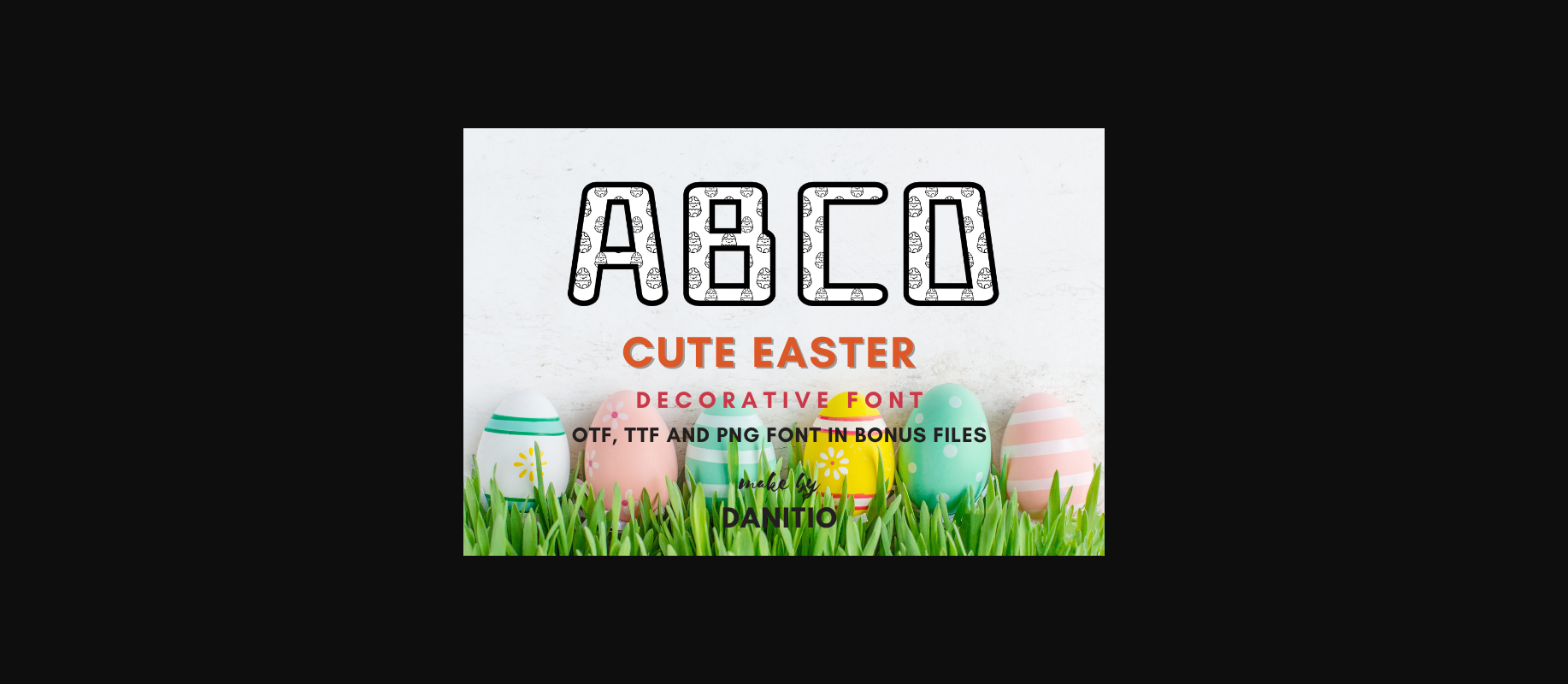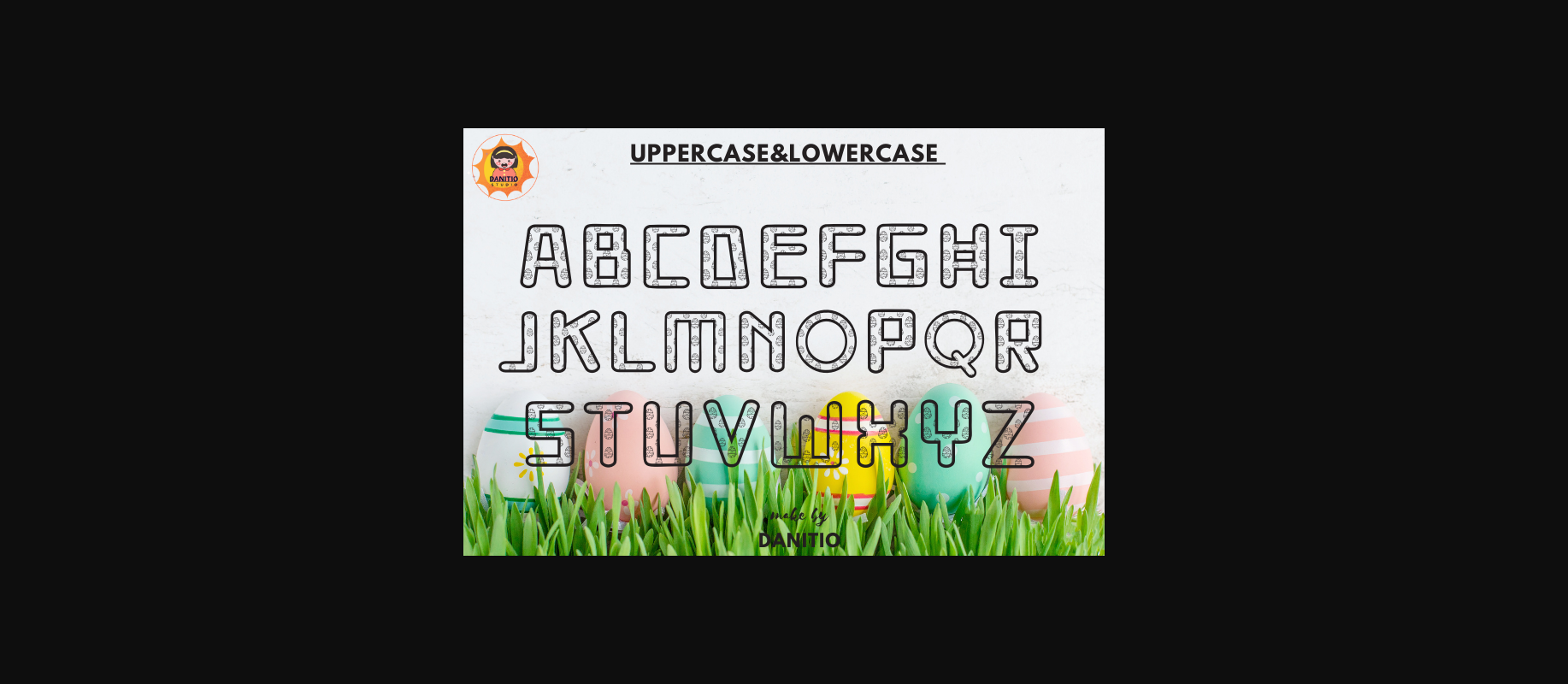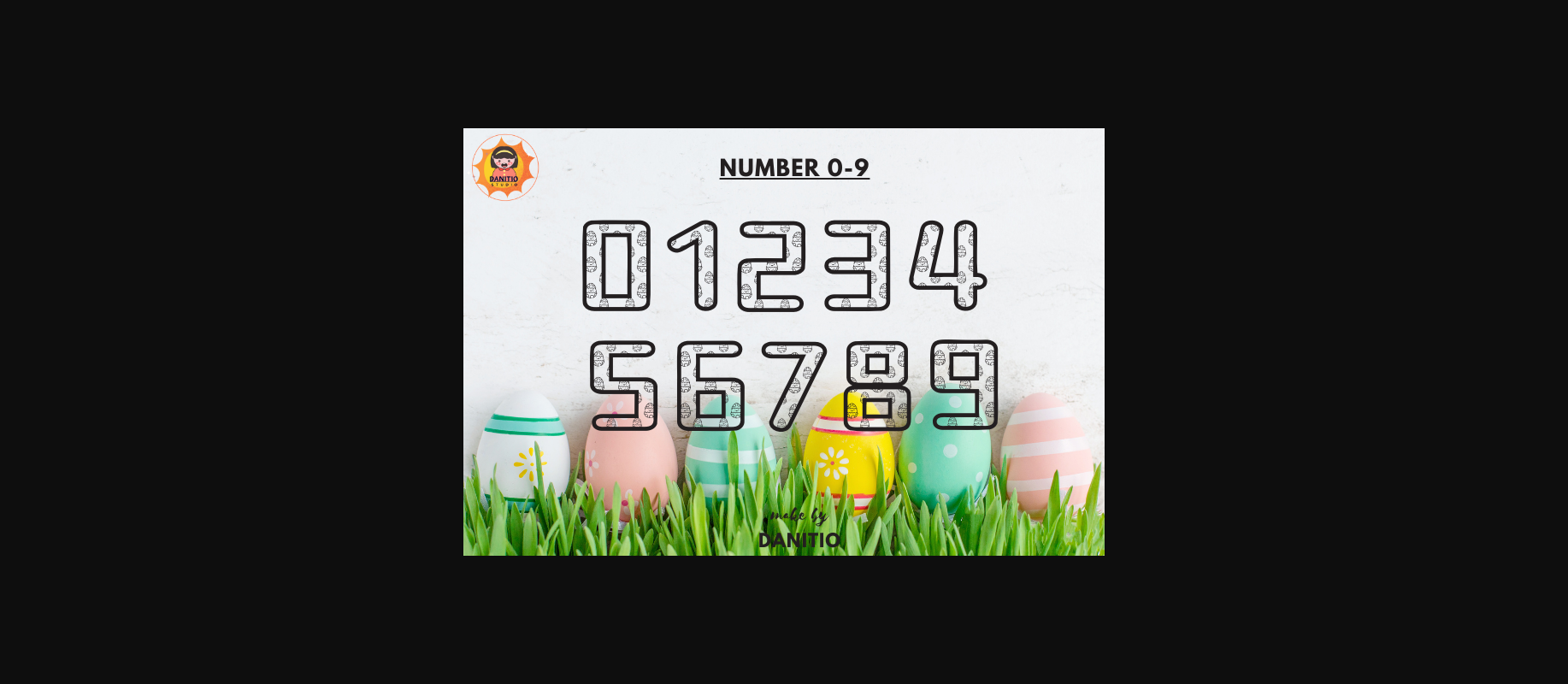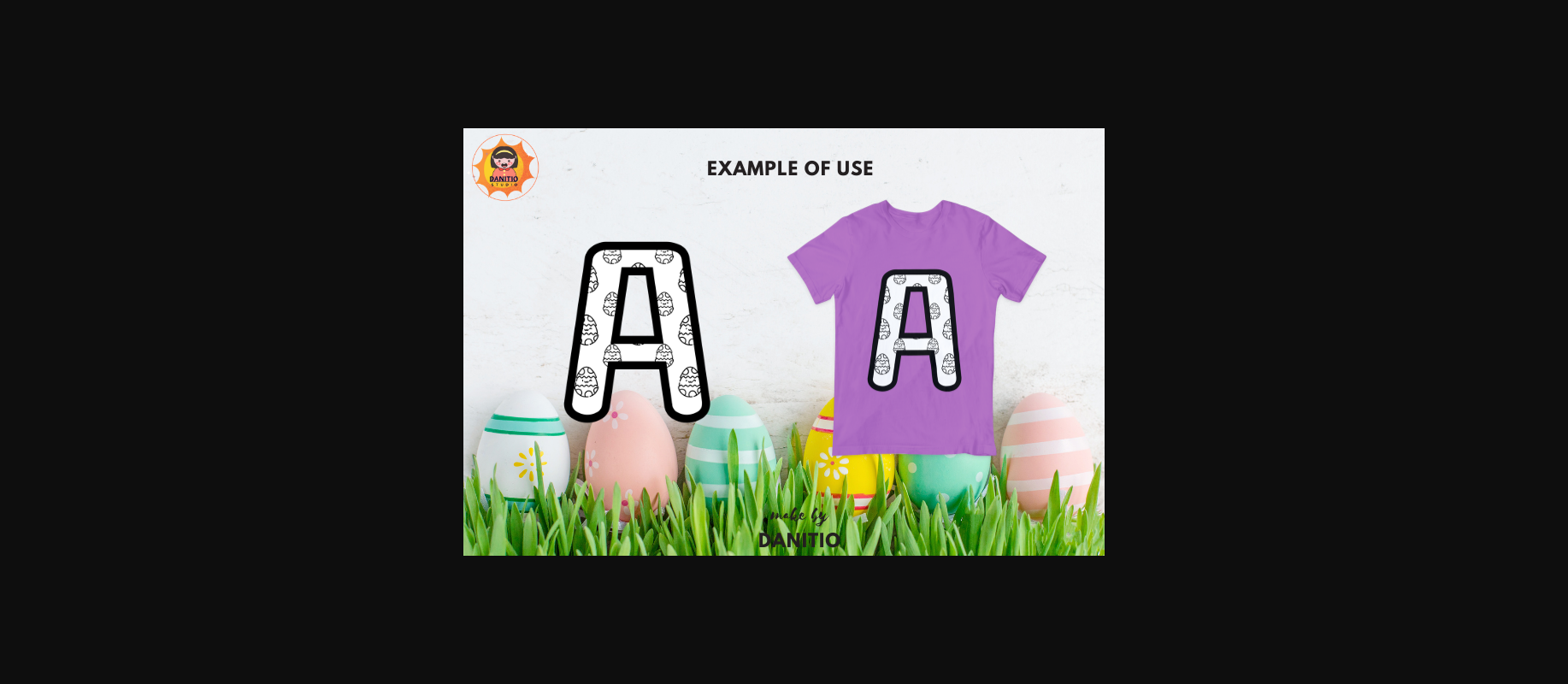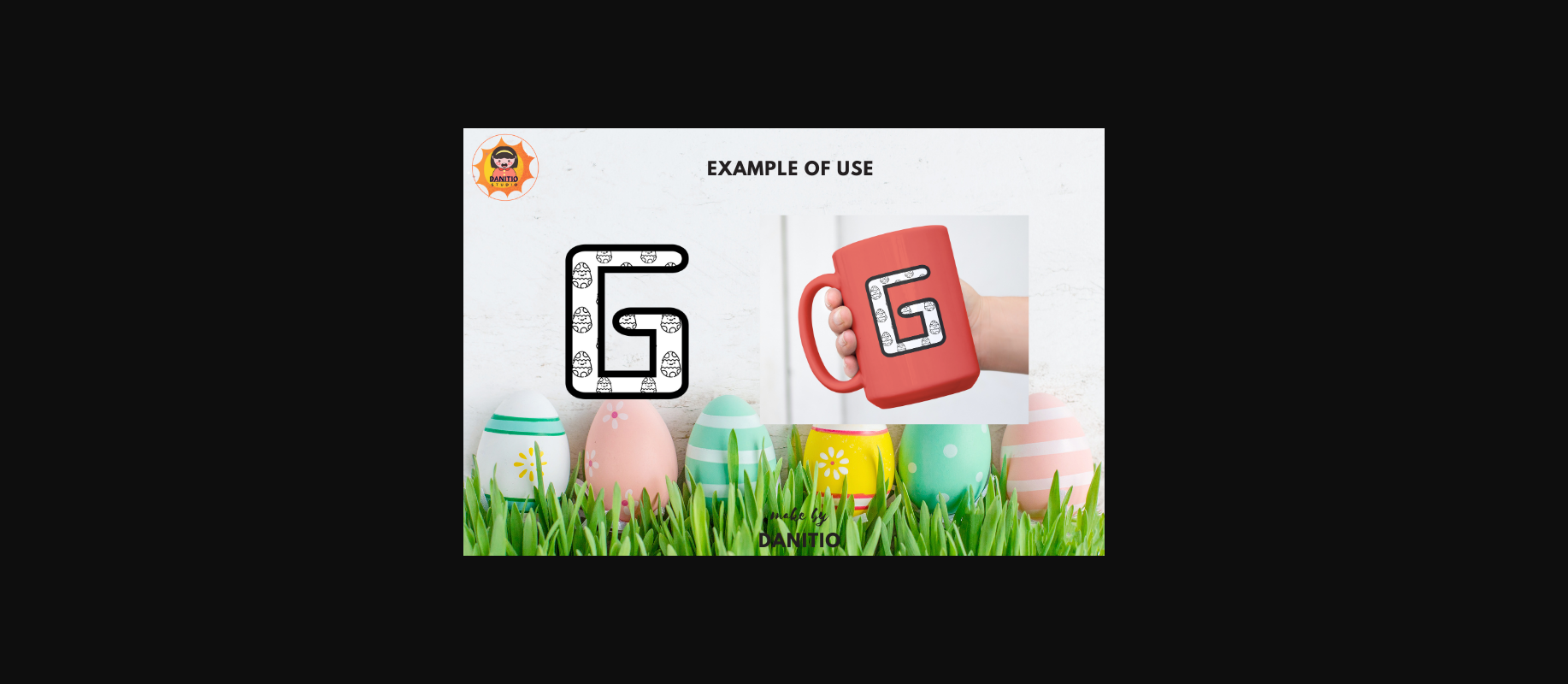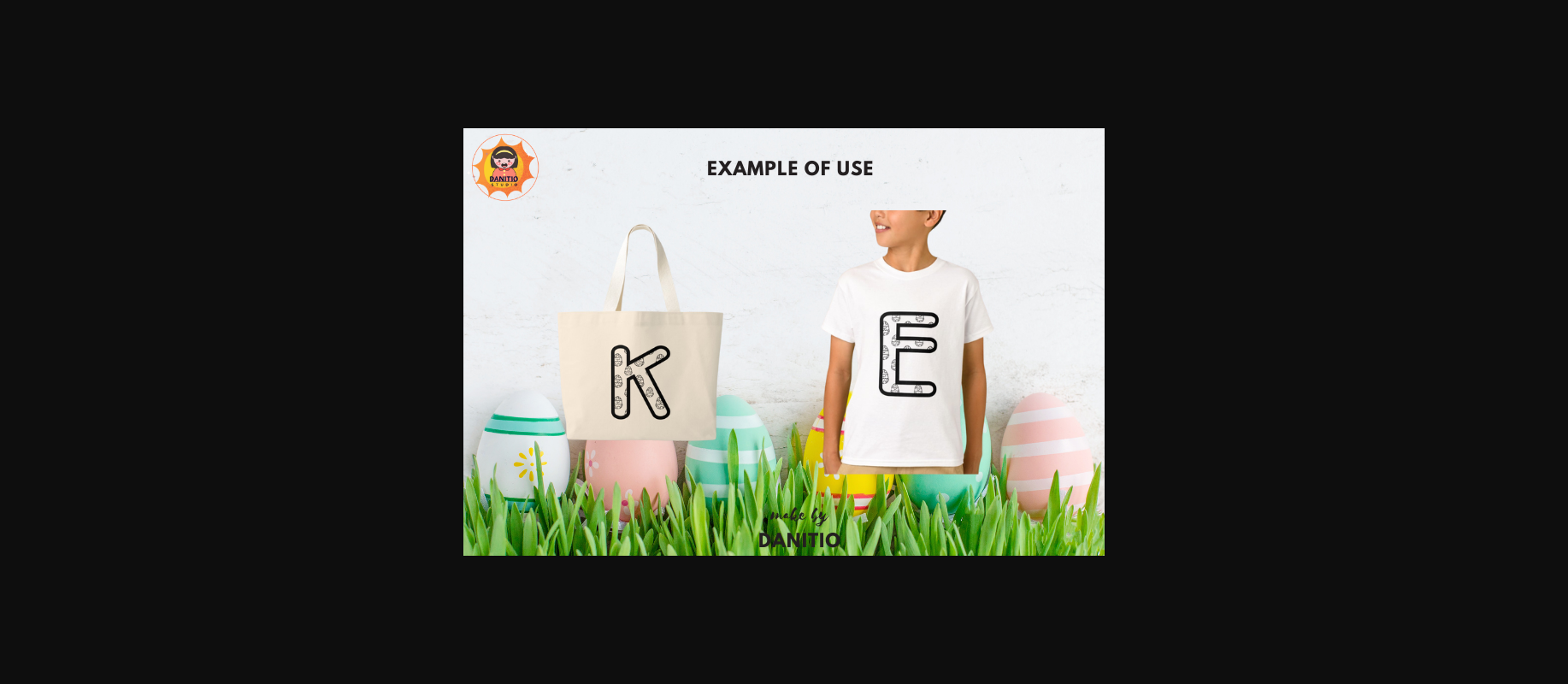
About Cute Easter Font
Cute easter It’s a decorative letter. Easter is considered one of the most important and important days in the worship calendar when Jesus rose from the dead. (The resurrection of Jesus) is the support of Christians. I have included “egg” in the letters, where eggs are considered a symbol of new life and abundance. Christians therefore use Easter eggs as a symbol of Jesus’ resurrection.